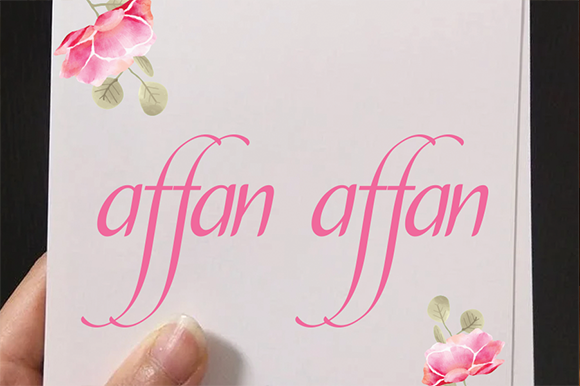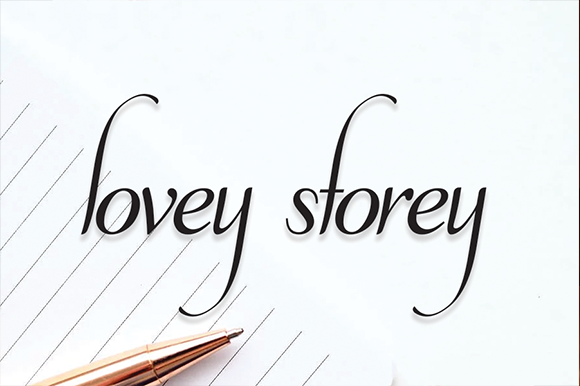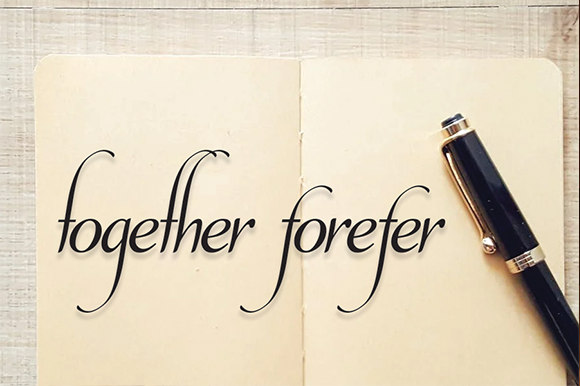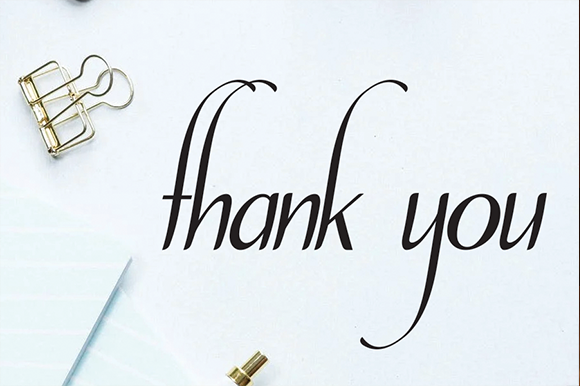
The Designer’s Delight: Ayu Febilayuku Font
Ayu Febilayuku: A Designer’s Dream
Ayu Febilayuku is inspired by classic typography but brings its own unique style to any design project. This fantastic handwritten font is best suited for headlines of all sizes, as well as for blocks of text that have both maximum and minimum variations. Whether it’s for web, print, moving images, or anything else – Ayu Febilayuku will look spectacular.
• ✨ Unique and elegant handwritten style that’s perfect for making a statement
• βœ… Highly versatile and adaptable to various design projects
• βœ… Excellent for both headlines and body text, with beautiful variations
• βœ… Easy to read, even in smaller sizes
While Ayu Febilayuku is an amazing font, there are a few things to keep in mind:
• ⚠️ Some of the more intricate details might get lost in very small sizes
• πŸ€” Limited availability of certain special characters or glyphs
Ayu Febilayuku was created with the intention of blending traditional typography with a modern, fresh twist. The designer aimed to produce a font that was not only beautiful but also highly versatile, capable of being used in a variety of creative projects. The result is a font that feels both nostalgic and contemporary.
Q: Is Ayu Febilayuku suitable for body text?
A: Absolutely! While it’s stunning in headlines, Ayu Febilayuku is also designed to be readable in body text, making it a great choice for longer blocks of text.